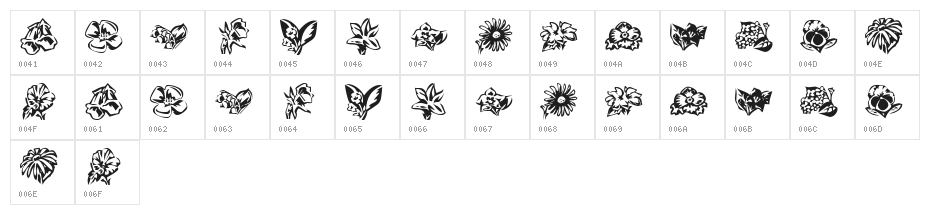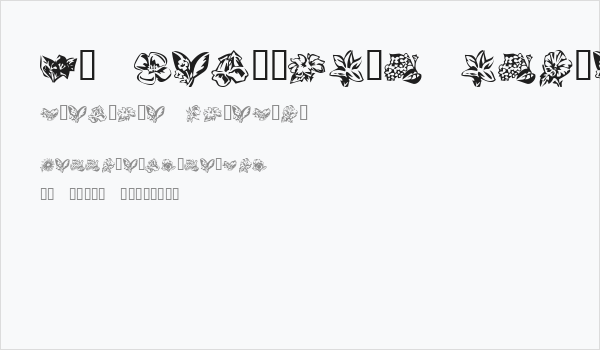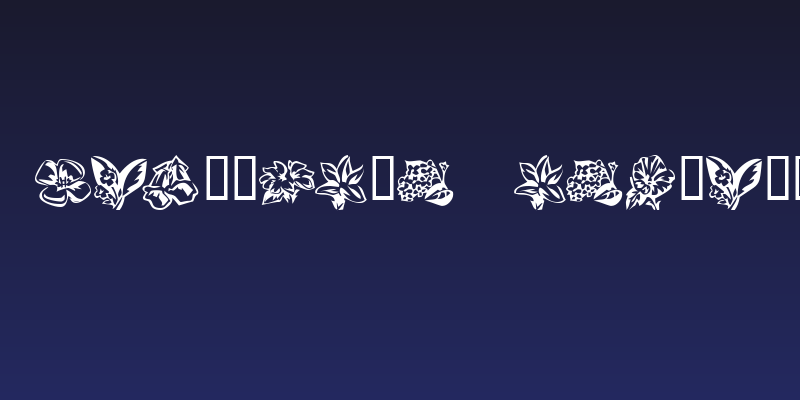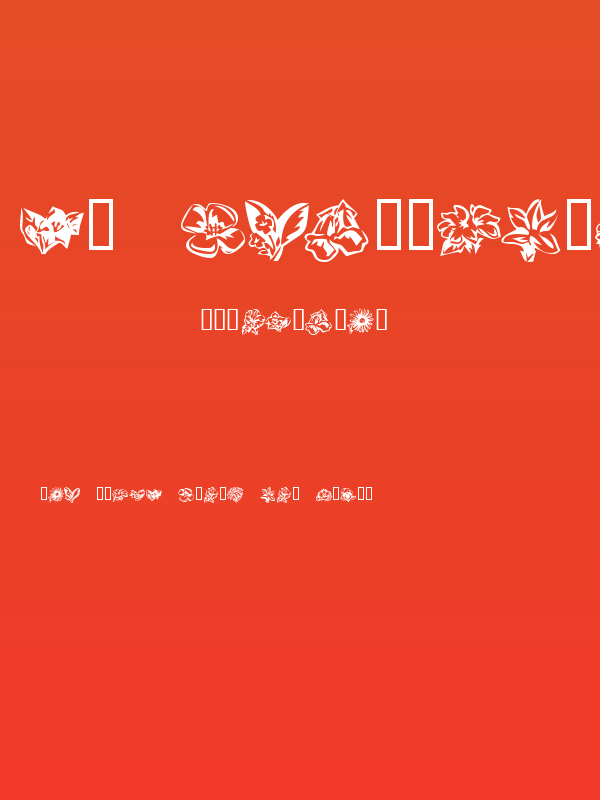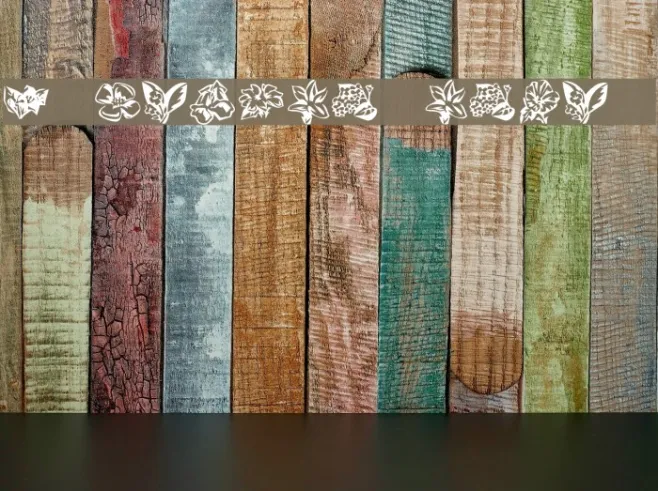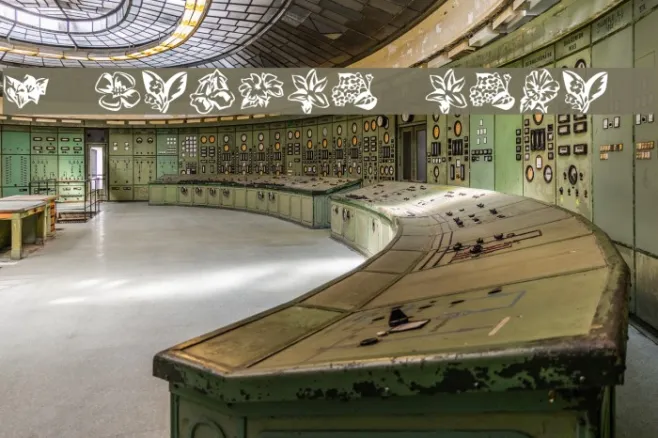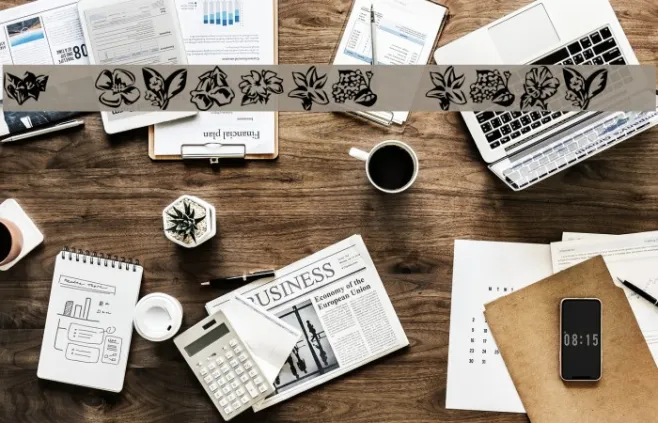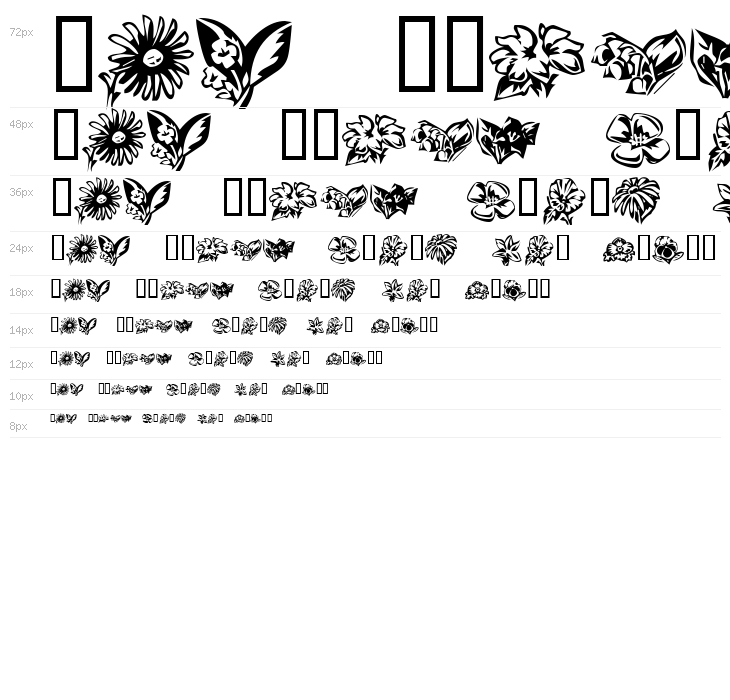
KR Beautiful Flowers 3 Font
KR Beautiful Flowers 3 Description
A decorative dingbat font featuring a variety of stylized black and white flower illustrations, each glyph representing a different floral design with bold outlines and filled details.
| Use Case | Ornaments, embellishments, icons, borders. |
| Proposed Projects | Greeting cards, invitations, scrapbooking, decorative borders, craft projects, digital stickers. |